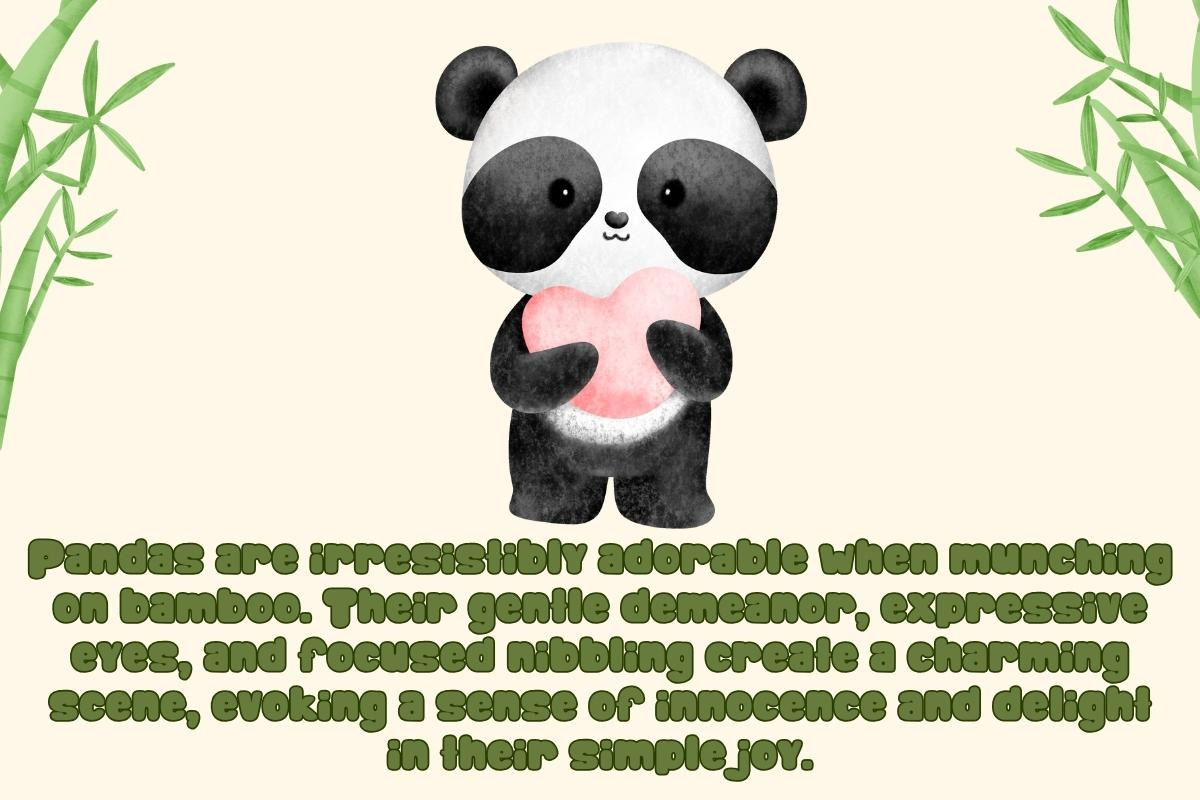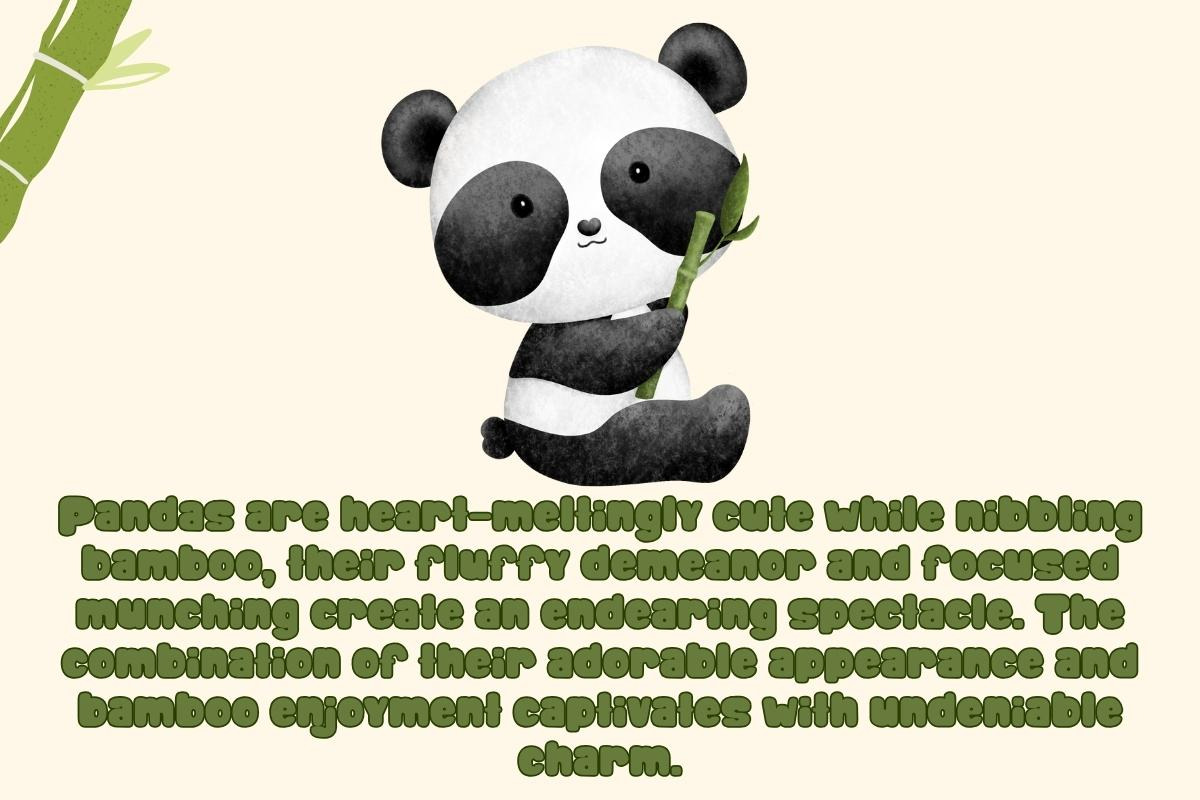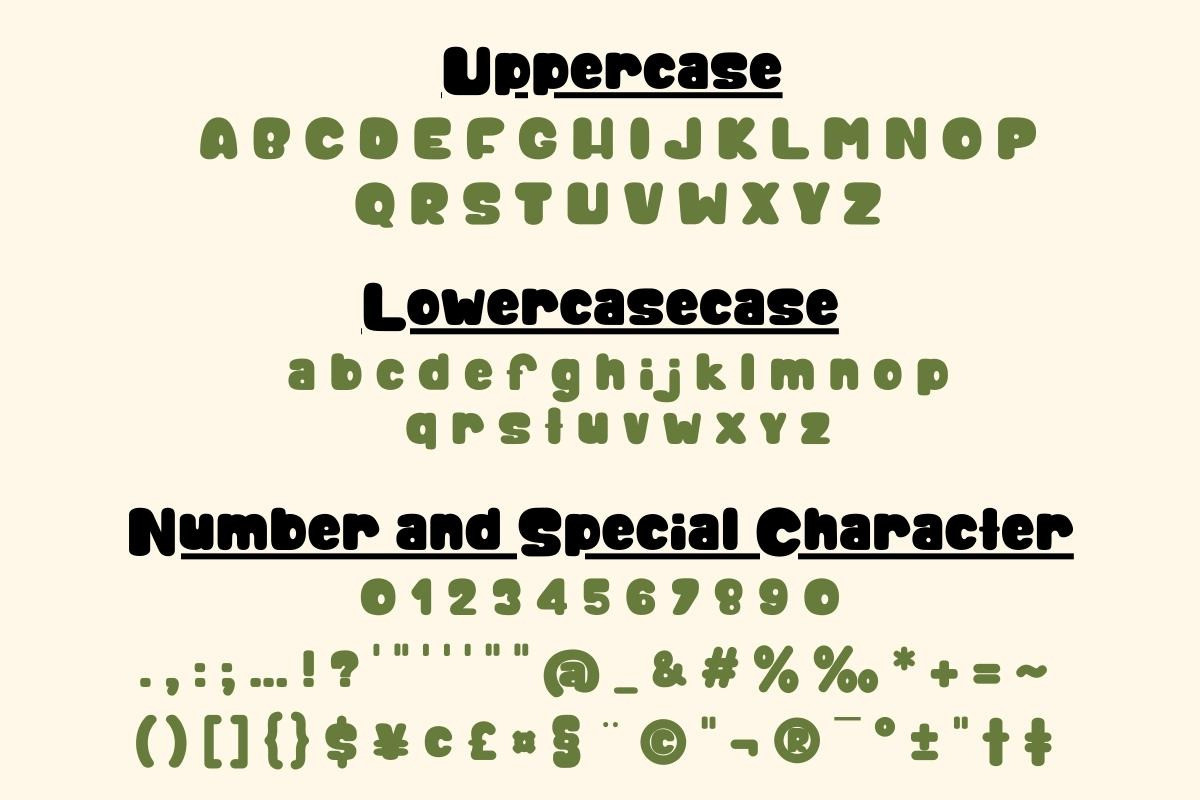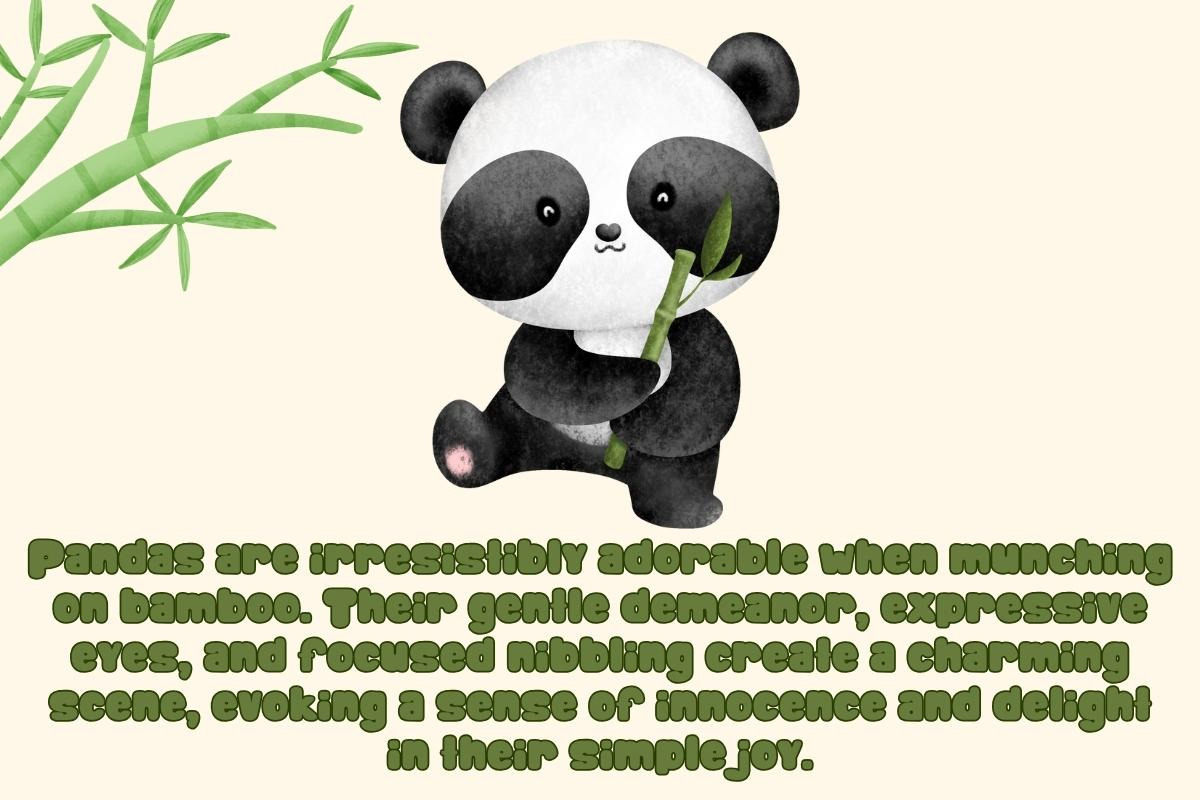
Happy Bamboo - Handwritting
Unleash the creative magic with Happy Bamboo, a unique script font that seamlessly merges the grace of a handwritten style with the bold impact of a display font. Infuse your designs with personality and charm, making each stroke a celebration of creativity. Elevate your project with Happy Bamboo – where every word becomes art.